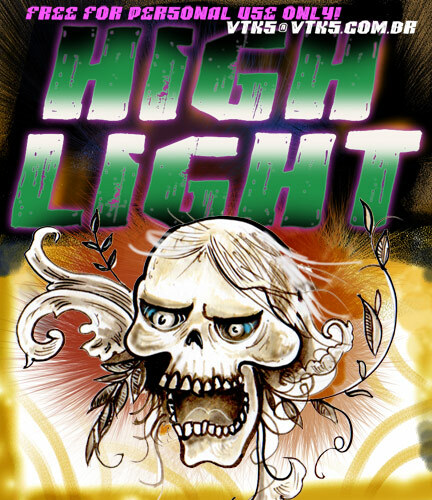
VTKS Highlight by Douglas Vitkauskas is a free eroded caps display font with blunt weight and the rough impact of hand-cut poster lettering. Its broad, uneven forms are packed with scratches, chips, and streaky gaps, and the slightly warped edges keep the repeated block shapes from looking mechanically uniform.
Packaging is a convincing home for this battered print texture, especially on craft beer labels, hot-sauce bottles, and rugged outdoor goods. For music merchandise and event posters, the damaged letterforms can become part of a gritty brand identity rather than simple titling, with the wear functioning like a recurring product mark.